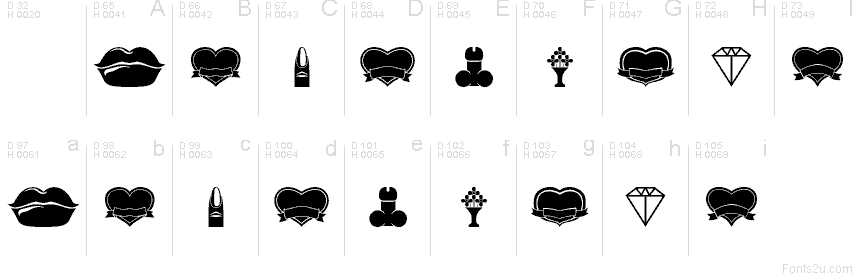
Uthando Regular
Uthando font by Vladimir Nikolic is a free romantic dingbat typeface filled with bold, inky silhouettes of lips, hearts, gifts, candles, diamonds, and love-themed icons. Each symbol is chunky and high-impact, with crisp outlines that read clearly even at tiny sizes but feel almost poster-like when scaled up. The icons have a playful, slightly cheeky vibe that turns any layout into a mini celebration of affection.
Using Uthando, it’s easy to drop ready-made graphics into Valentine’s cards, wedding invitations, lingerie tags, beauty packaging, social posts, and flirty event flyers. The consistent weight and simple shapes make these dingbats quick to color, outline, or layer in your design tool. This free font pairs smoothly with a clean sans or soft script—set Uthando big as decorative accents, then let your text stay smaller and understated alongside.